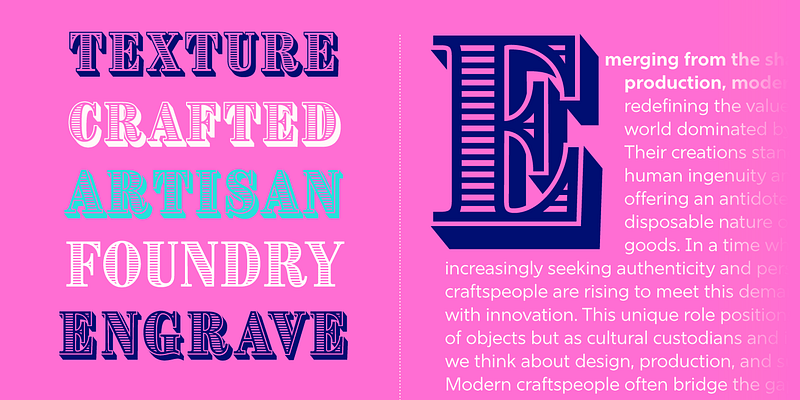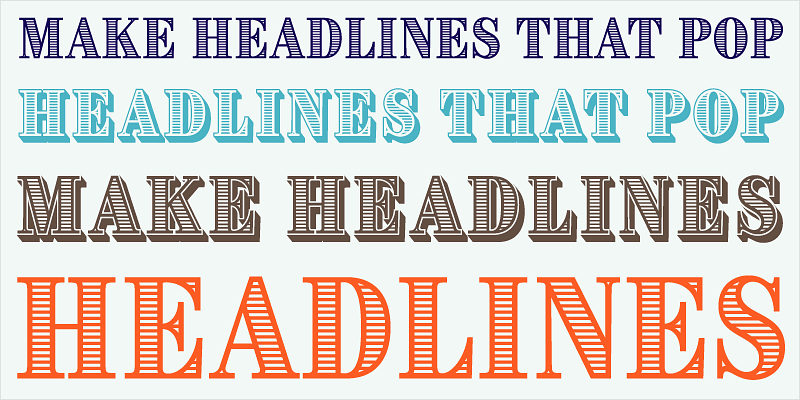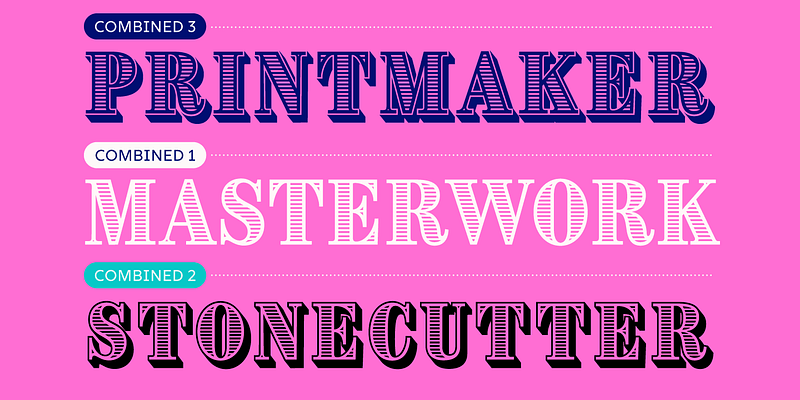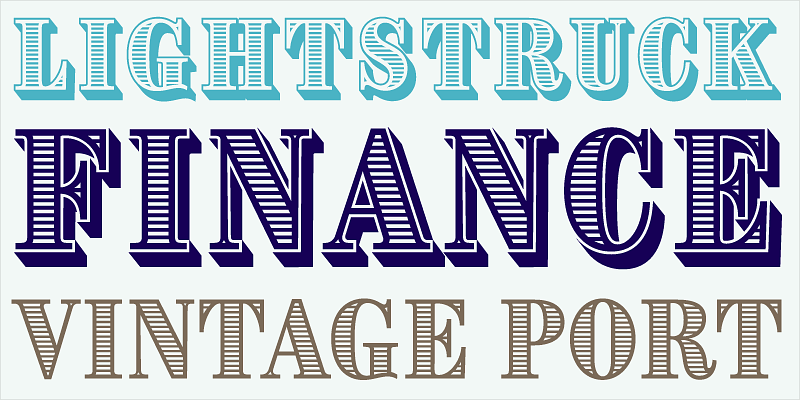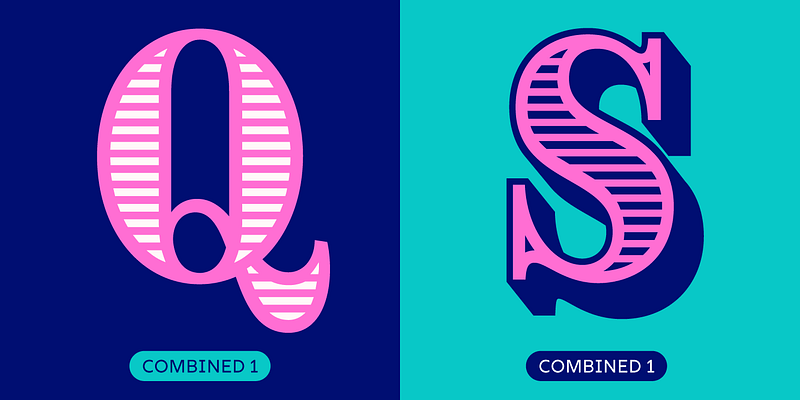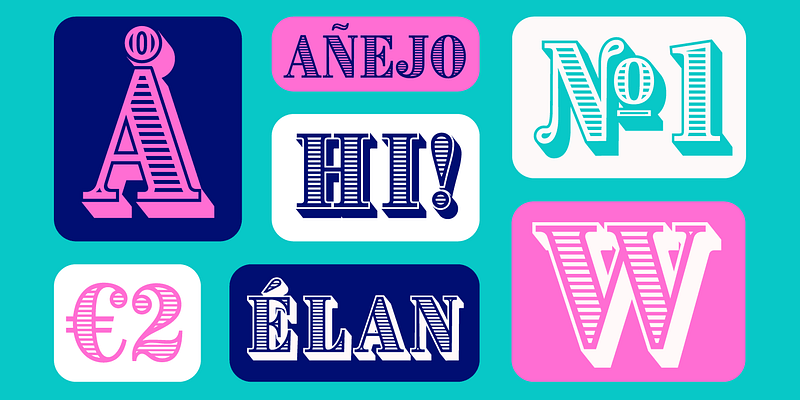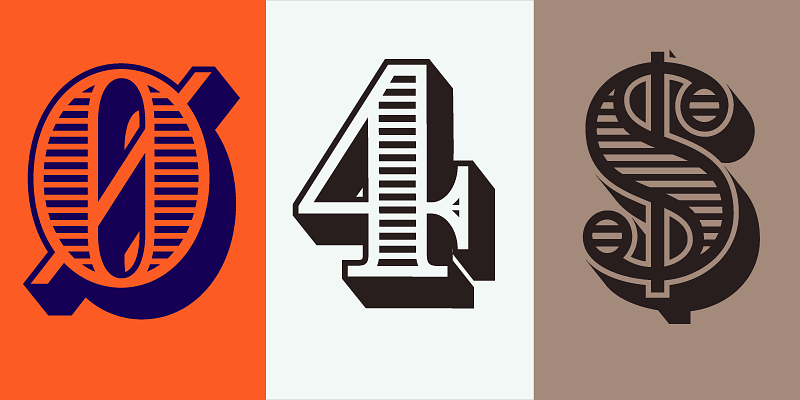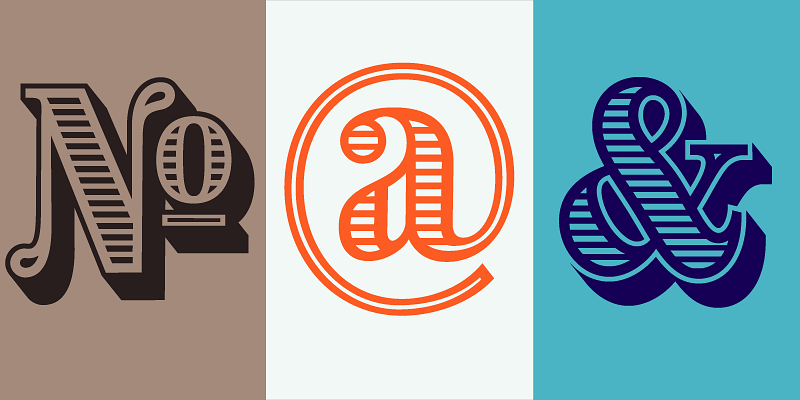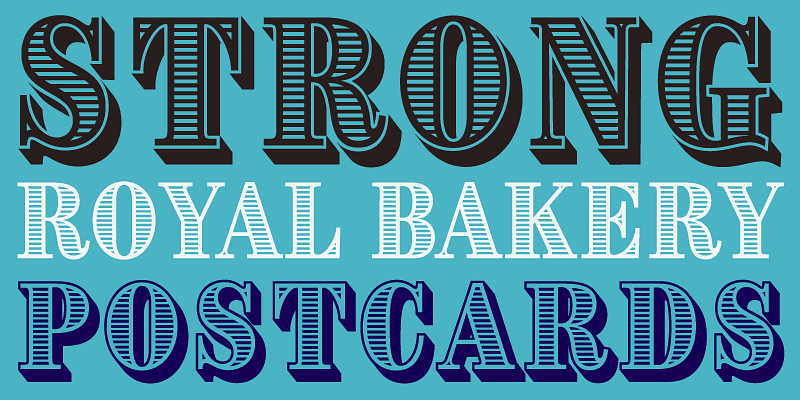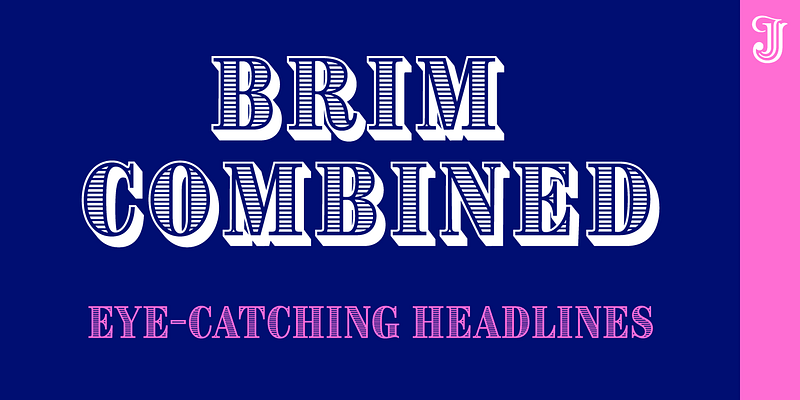
Brim’s innovative styles distill the warmth and tactile charm of antique woodtype into a contemporary display family. Create eye-catching headlines that invoke sophistication and heritage.
The typefaces in Jamie Clarke’s growing library are often inspired by the lettering projects he also works on. Each new font aims to capture the energy and spontaneity of his lettering, through innovation and technology. The foundry’s goal is to craft original typefaces that communicate with flair.
Jamie’s foundry was established in 2013 after he studied type design at Reading University and letterpress at the St. Bride Foundation in London. He runs the Type Worship blog and was part of the team at 8 Faces typography magazine. Prior to this he spent a decade as a co-founder and Creative Director of a top digital agency in London.